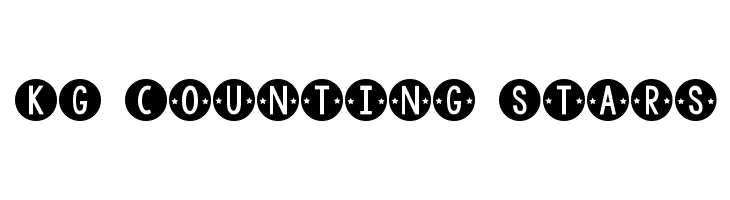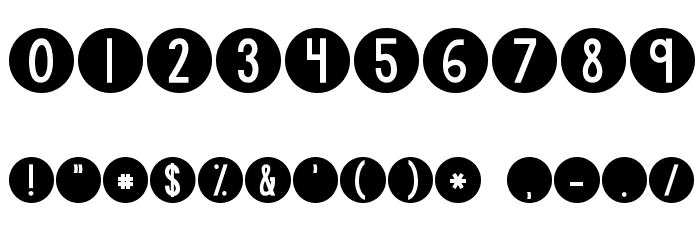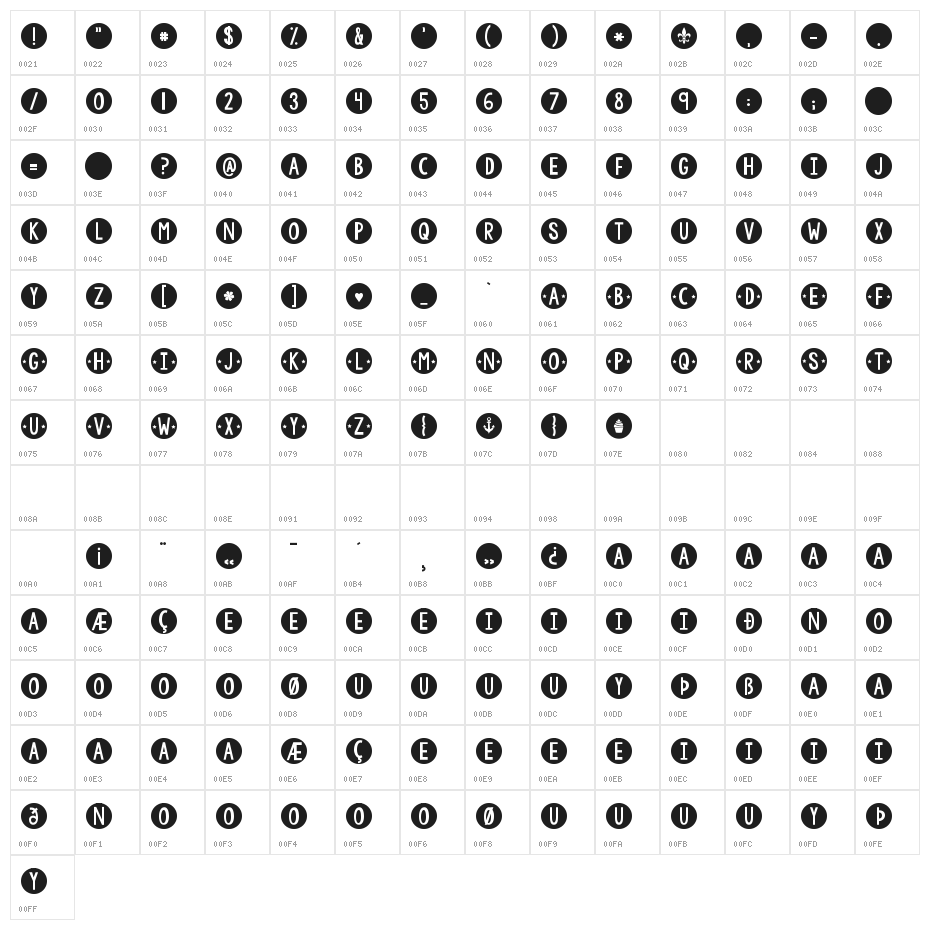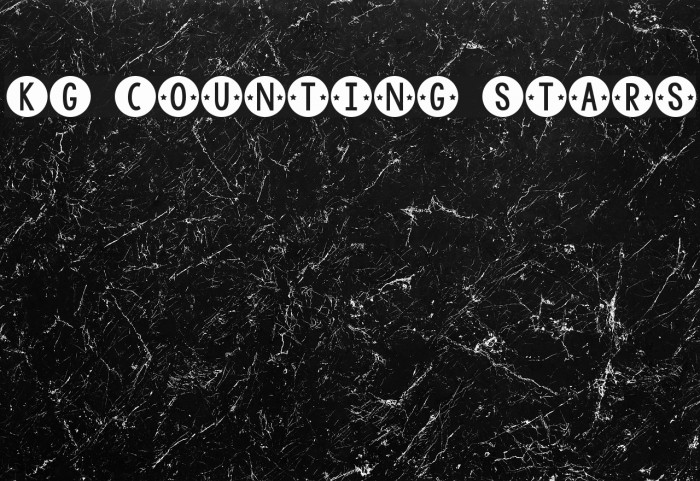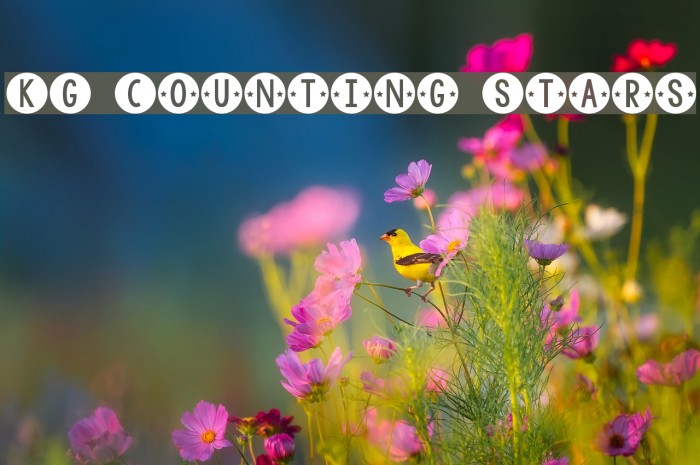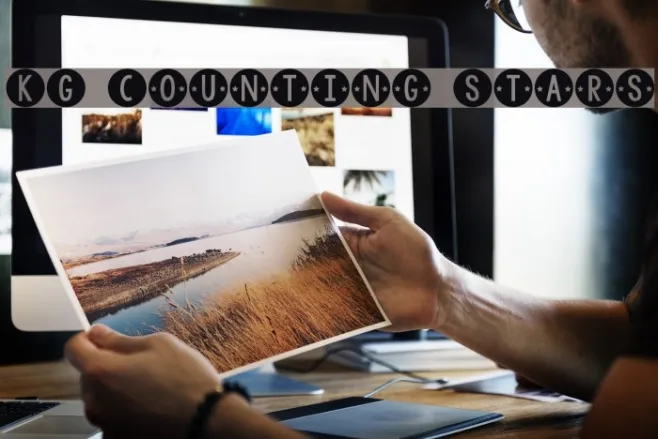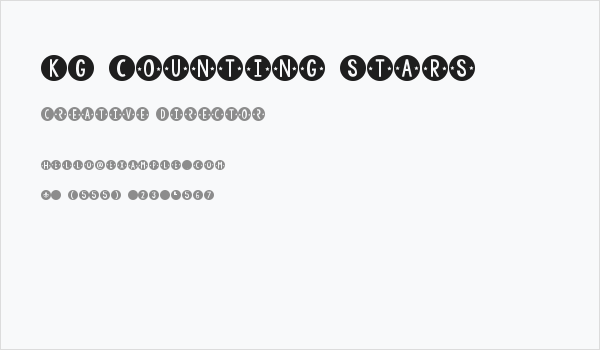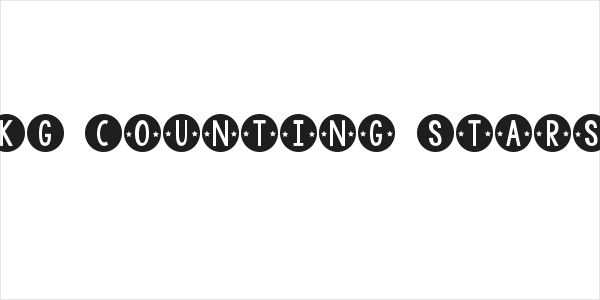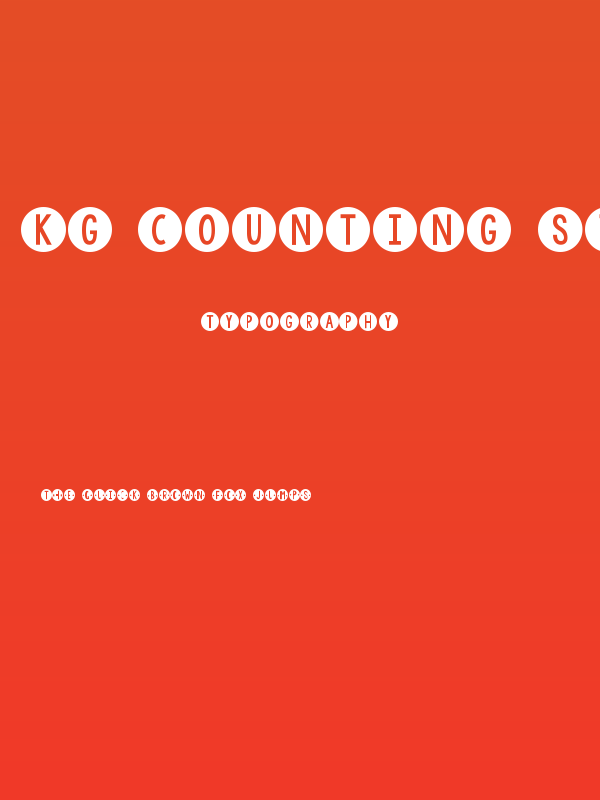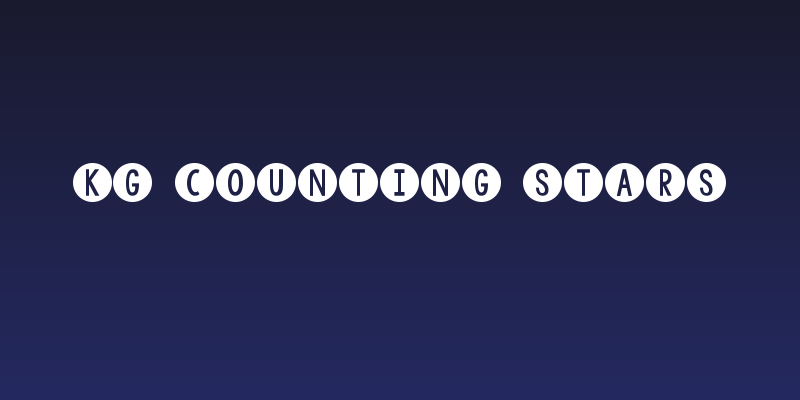
KG Counting Stars Font
KG Counting Stars Description
This font features bold, uppercase and lowercase letters, numerals, and special characters encased in circular shapes. Each character is centered within a black circle, creating a striking contrast that makes the white letters stand out prominently. The design includes a decorative star on either side of the letters in the second row, adding a playful and whimsical touch. The font's geometric and symmetrical style gives it a modern and eye-catching appearance, suitable for various creative projects. The consistent use of circles provides a unique and cohesive look, making it ideal for designs that require a bold and distinctive typeface.
| Proposed Projects | Ideal for children's books, playful posters, party invitations, and creative branding. |